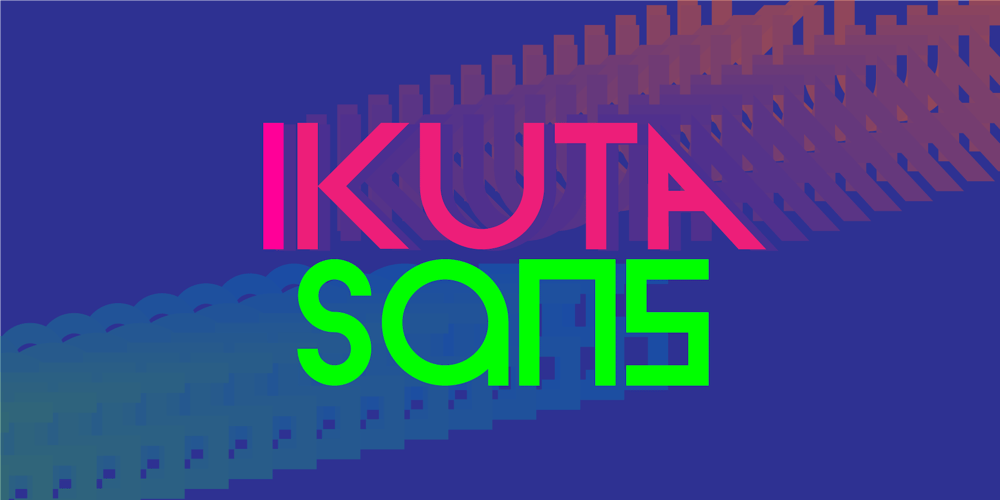
Ikuta Sans
Ikuta Sans font
Ikuta Sans Font Family was designed by Seyfullah TEMIZ and published by Leo Kuroshita. Ikuta Sans contains 5 styles and family package options. This is a geometric font suitable for modern designs.designed according to strict geometry.It’s geometric, but it has also humanly rough styles.and added various alternative glyphs.includes ligatures and alternate characters inspired by famous geometric fonts.